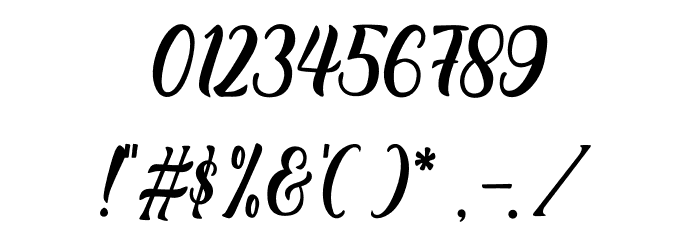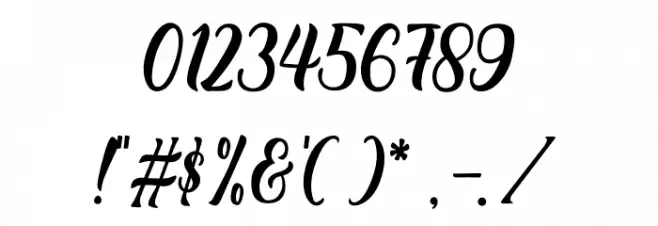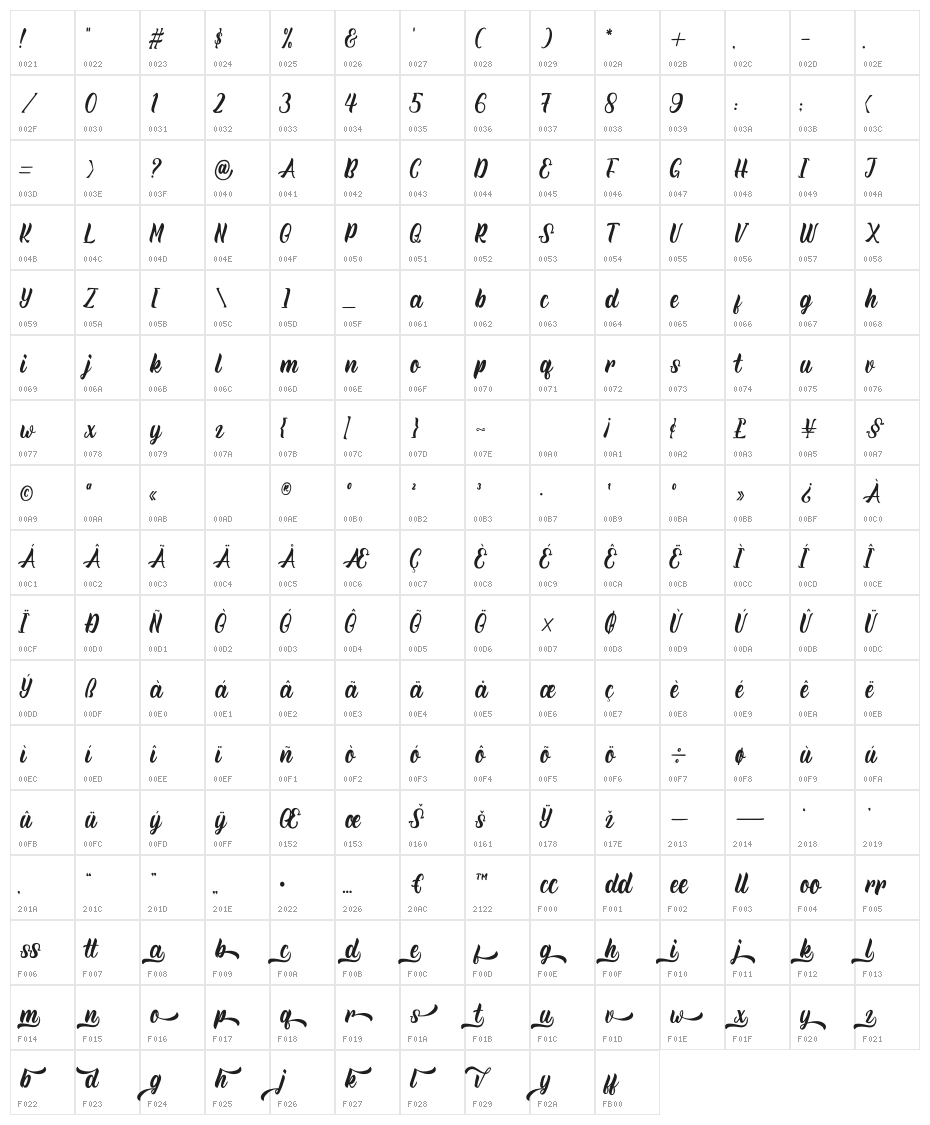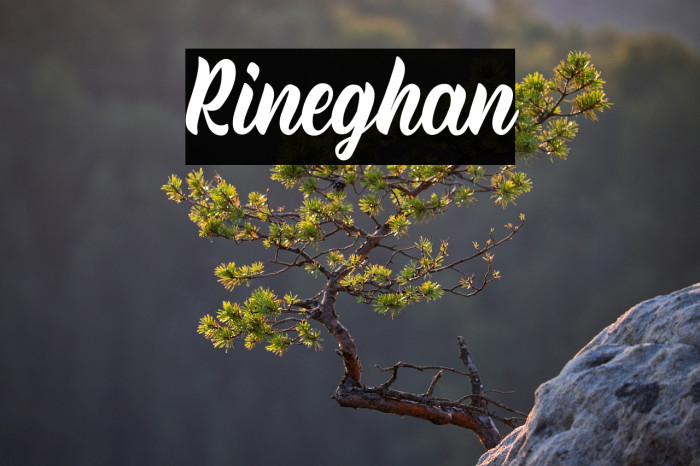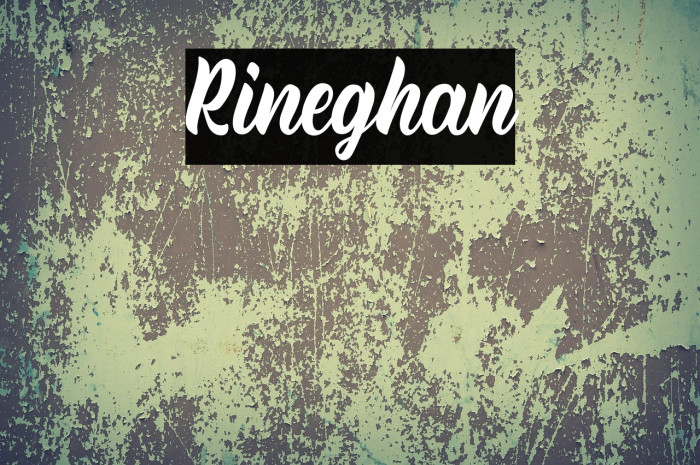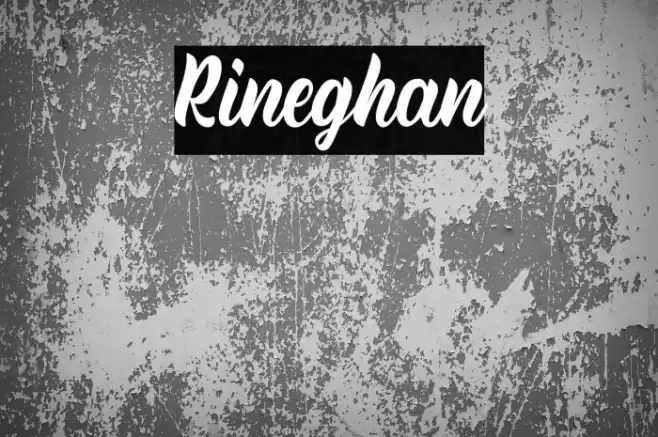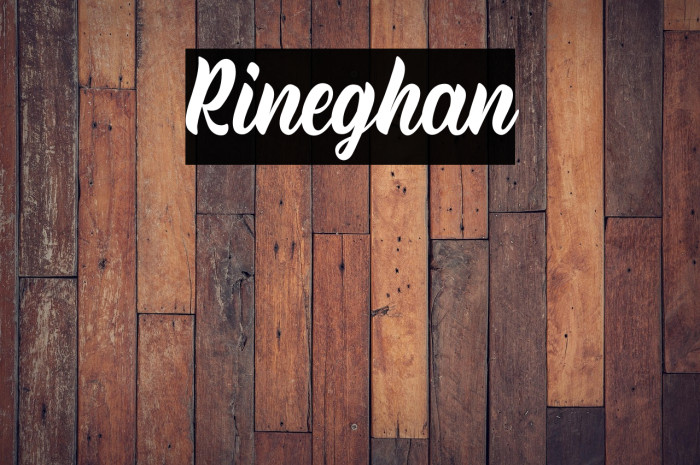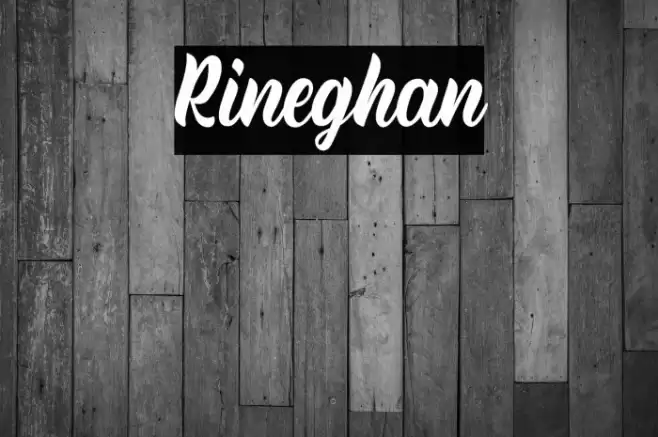
Rineghan Font
Rineghan Description
This font features a dynamic and flowing script style, characterized by its elegant and smooth curves. The letters are interconnected, giving it a cohesive and continuous appearance. The uppercase letters are bold and prominent, while the lowercase letters maintain a consistent flow with slightly less emphasis. The numerals are crafted with the same fluidity, ensuring uniformity across all characters. Special characters are designed to complement the overall style, adding a touch of sophistication. The font's design is reminiscent of traditional calligraphy, yet it maintains a modern edge, making it versatile for various applications.